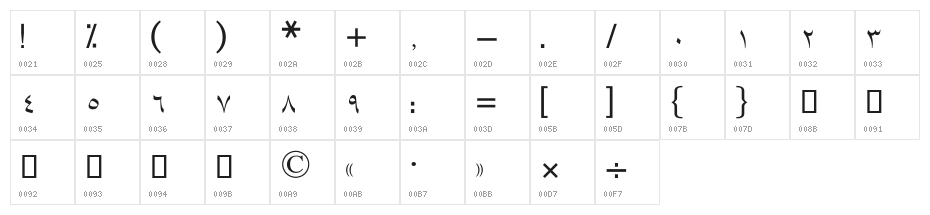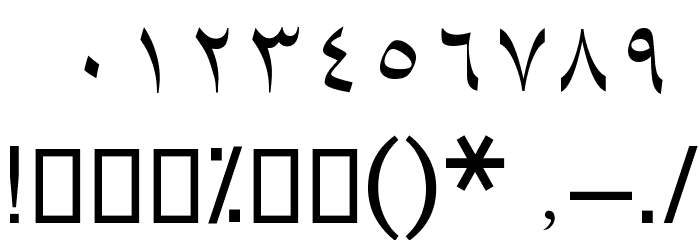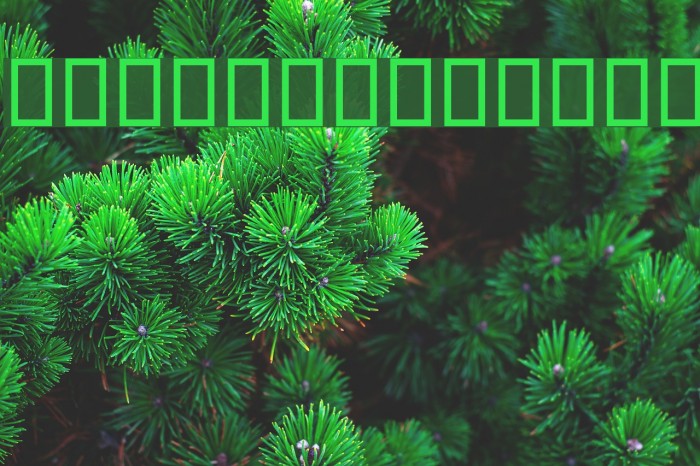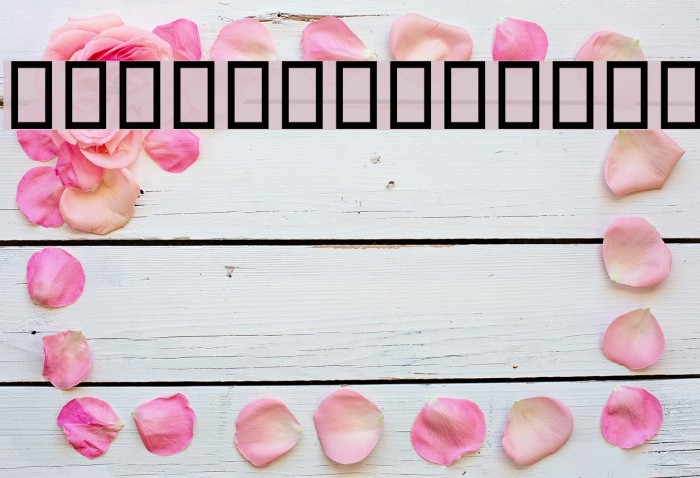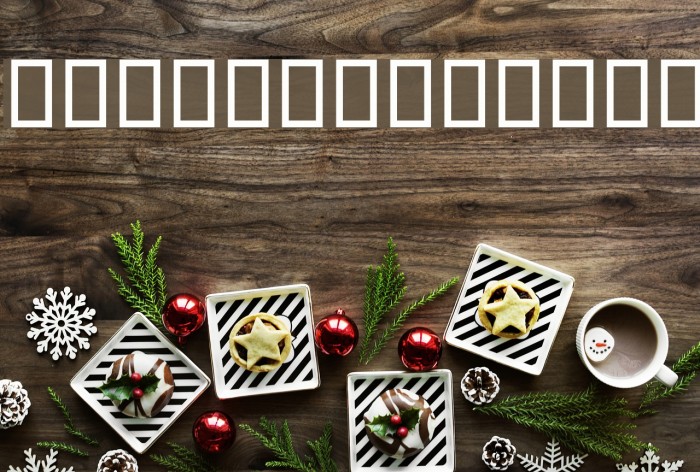
Tafsir Font
Tafsir Description
This font features a unique blend of traditional and modern elements, characterized by its elegant and flowing script style. The numerals are distinctively stylized, with a calligraphic influence that adds a touch of sophistication. The special characters are designed to complement the overall aesthetic, maintaining a consistent visual harmony across all glyphs. This font is ideal for projects that require a touch of elegance and creativity, such as invitations, branding, and editorial design.
گالری فانت فارسی پژوهش آريانا - only compatible with Farsi and Arabic
| Use Case | Invitations, Branding, Editorial Design |
| Proposed Projects | Ideal for wedding invitations, luxury branding, editorial layouts, and artistic posters. |